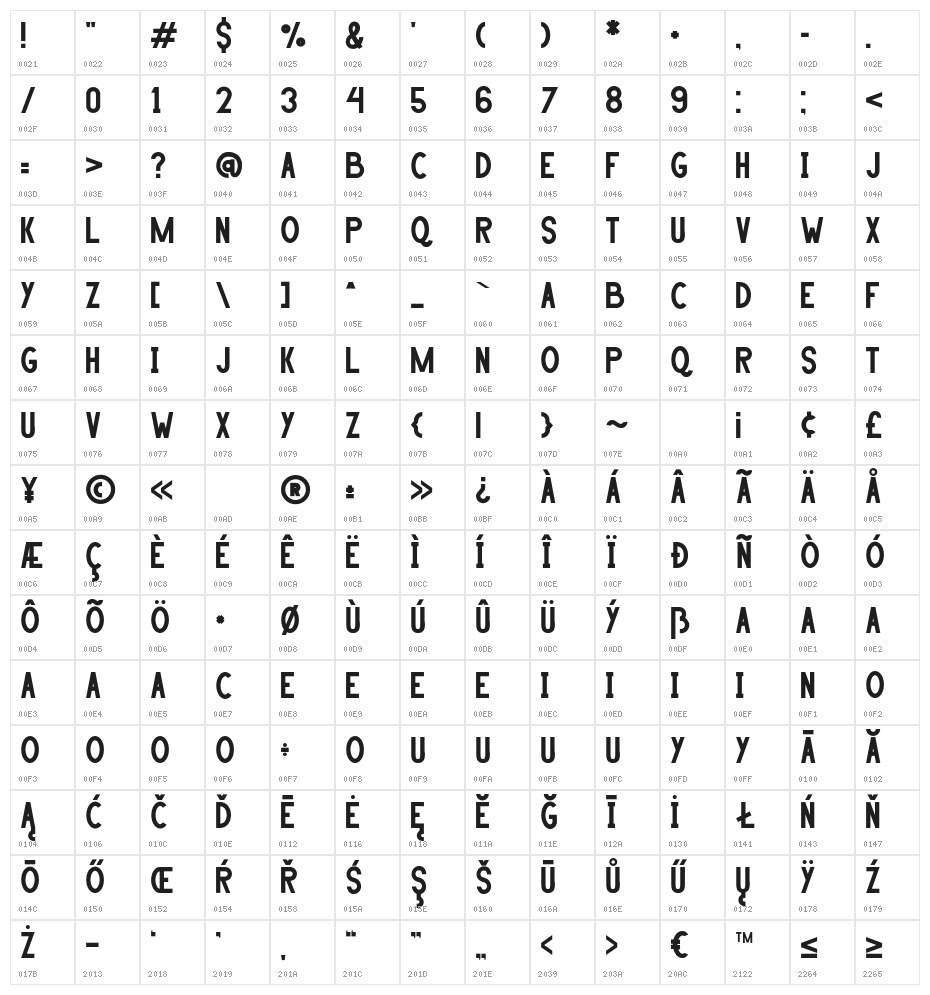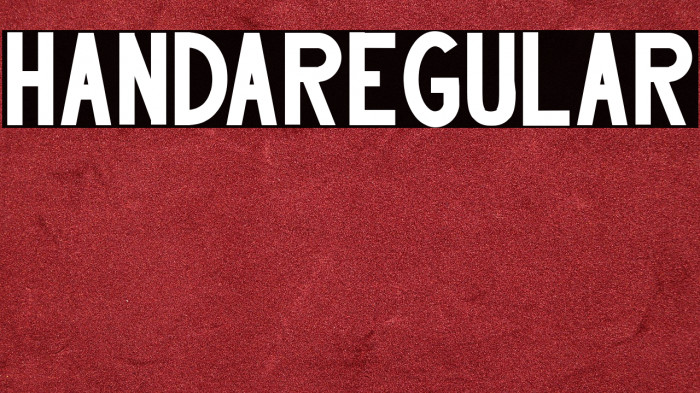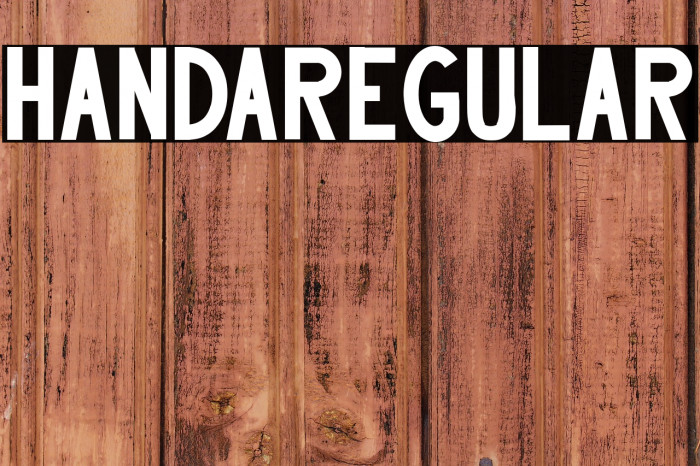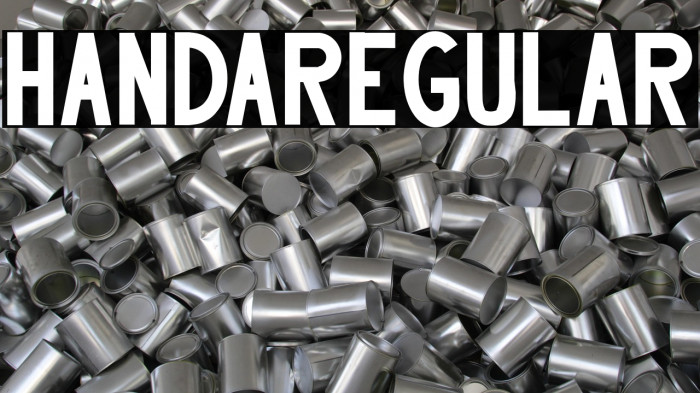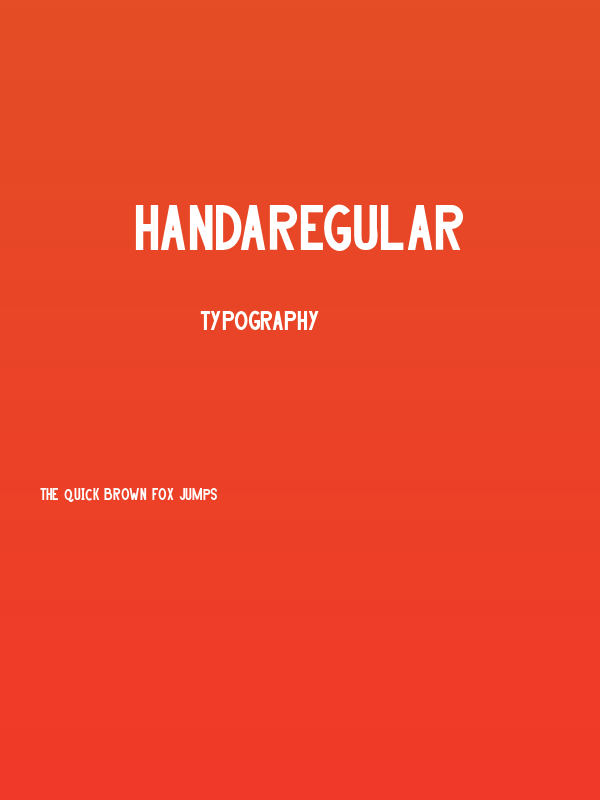
HANDARegular Font
HANDARegular Description
This font features bold, geometric letterforms with a strong presence. The uppercase letters are uniform in height, creating a cohesive and structured appearance. The lowercase letters maintain the same boldness, ensuring readability and impact. The numerals are clear and distinct, matching the overall bold style. Special characters are included, maintaining the same weight and style, making this font versatile for various uses. Its clean lines and modern aesthetic make it suitable for attention-grabbing designs.
| Proposed Projects | Ideal for headlines, posters, branding, and advertising where a strong visual impact is needed. |